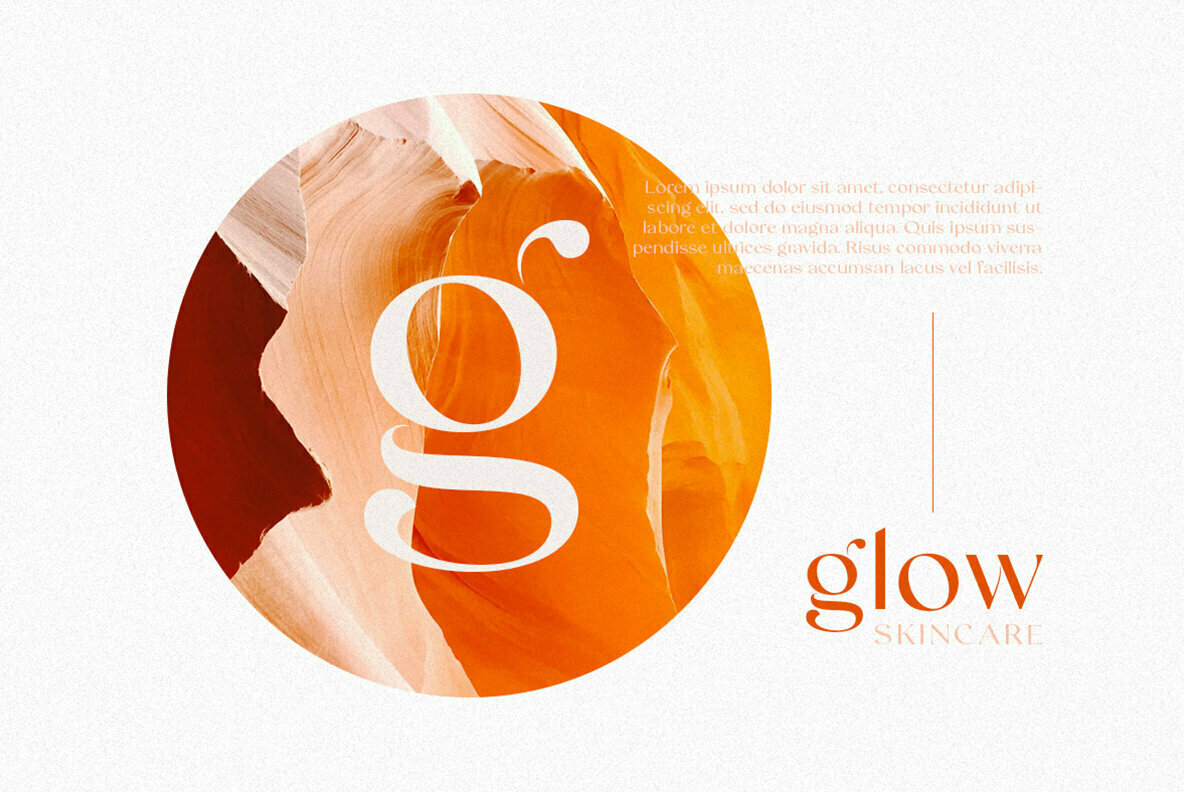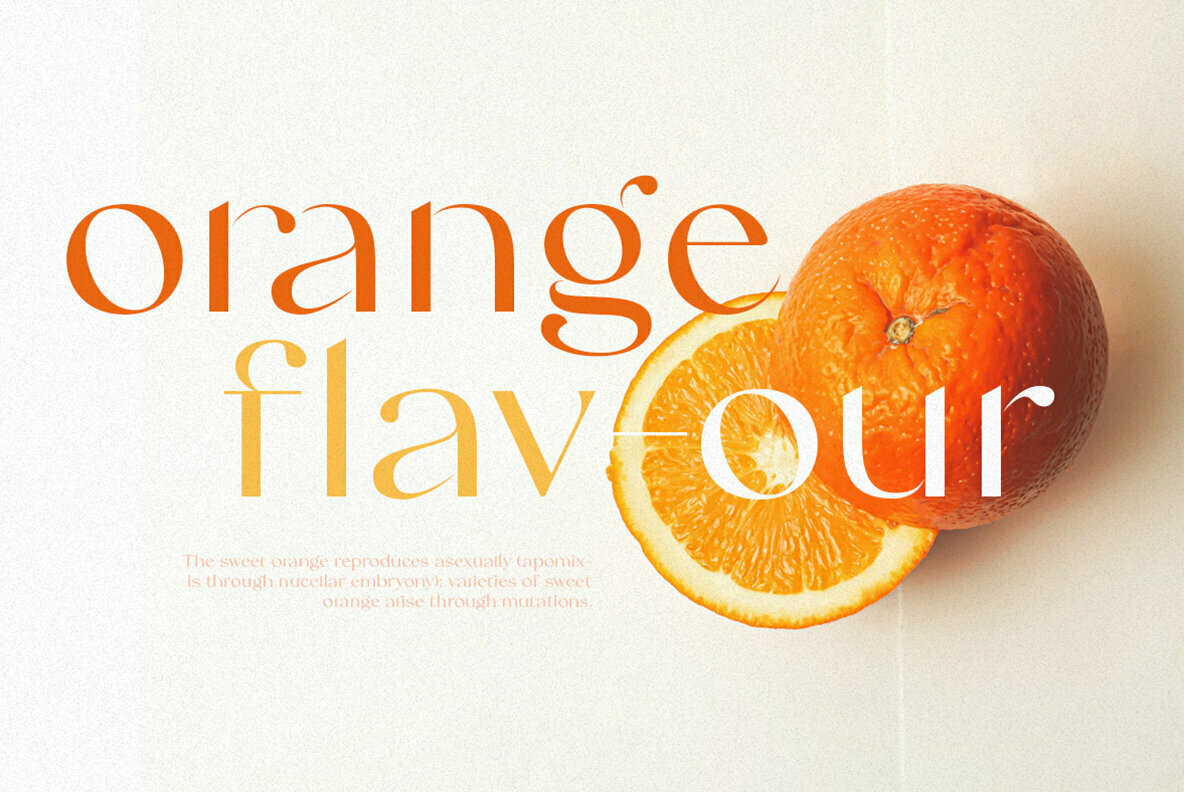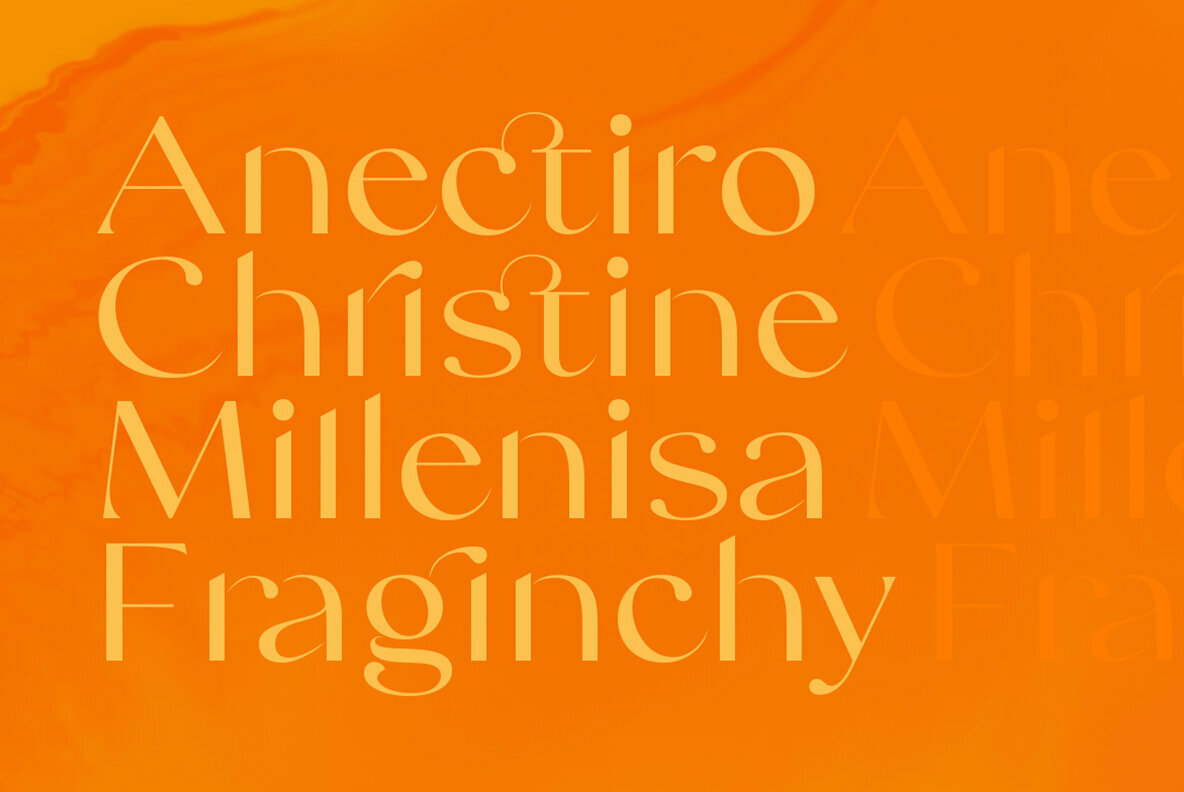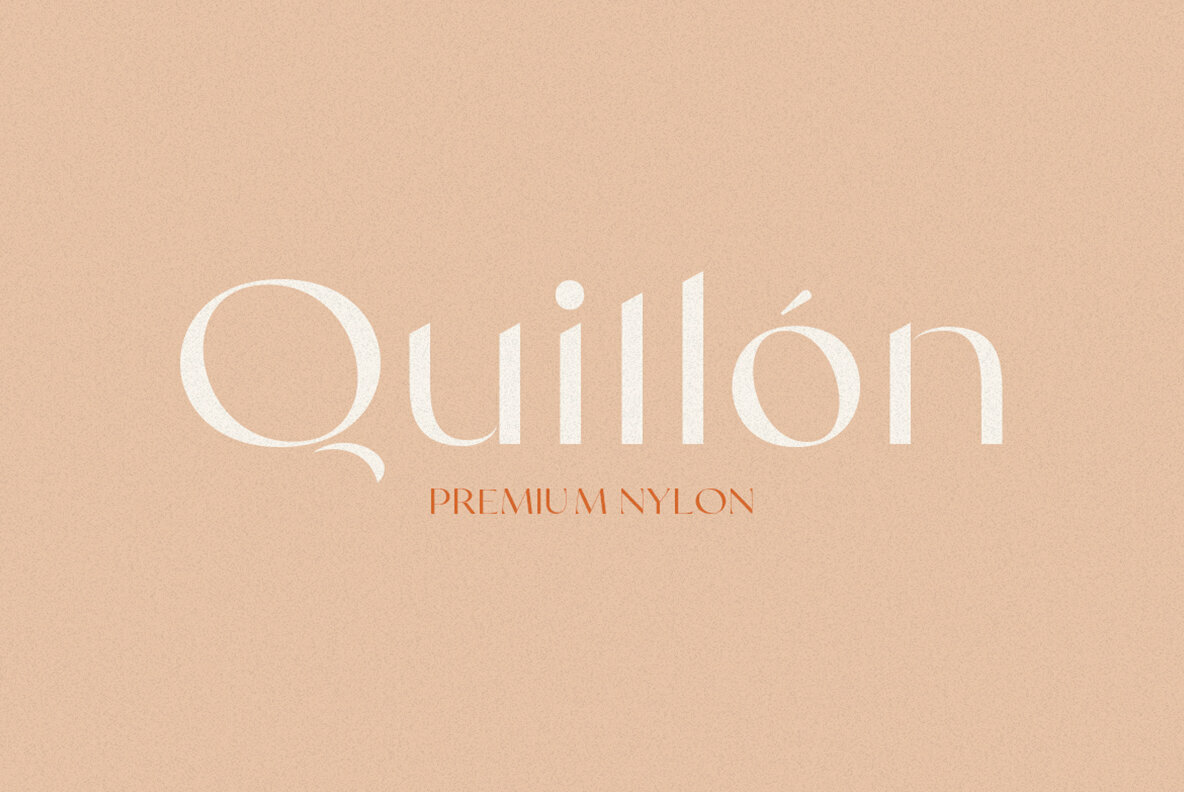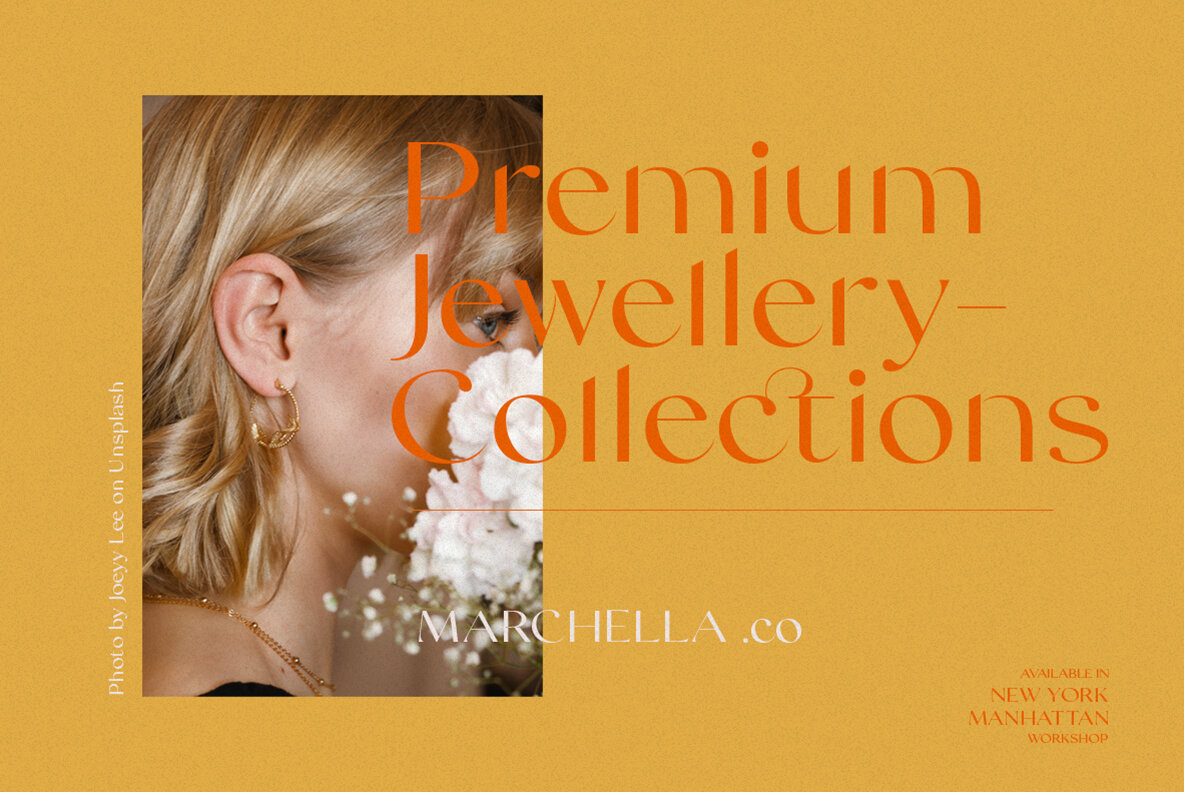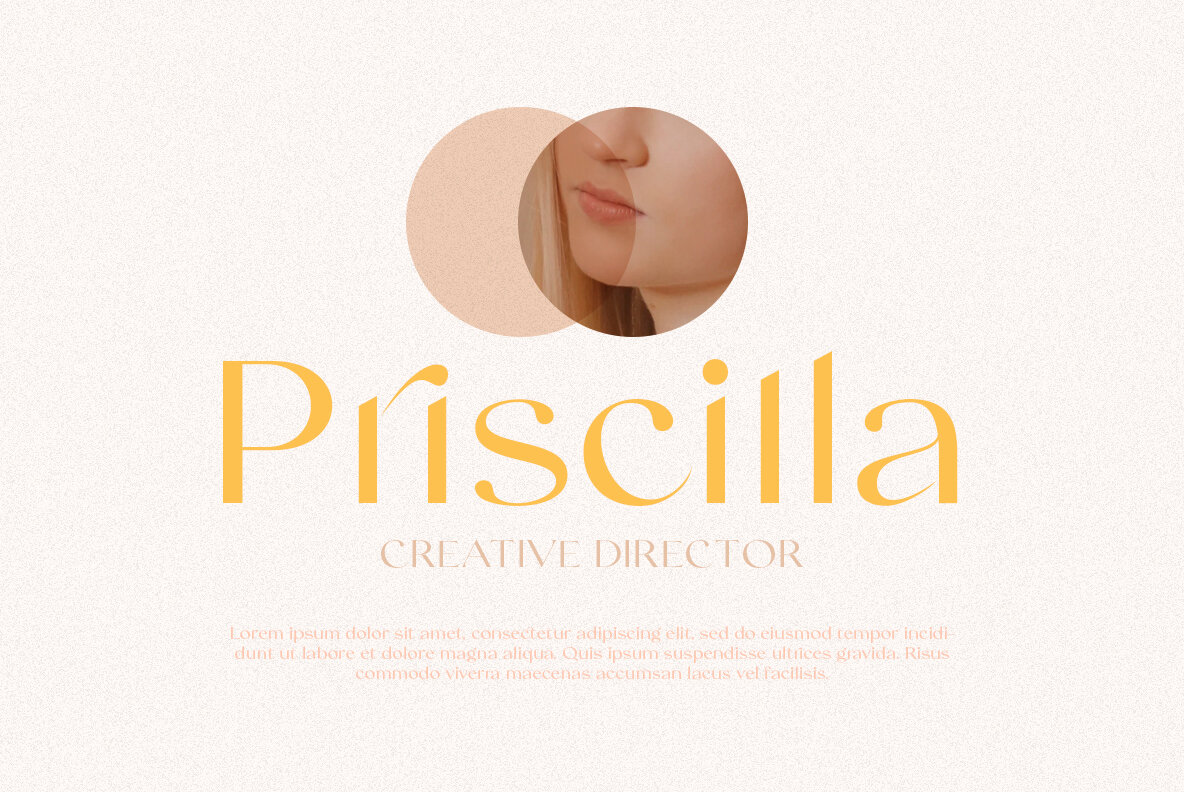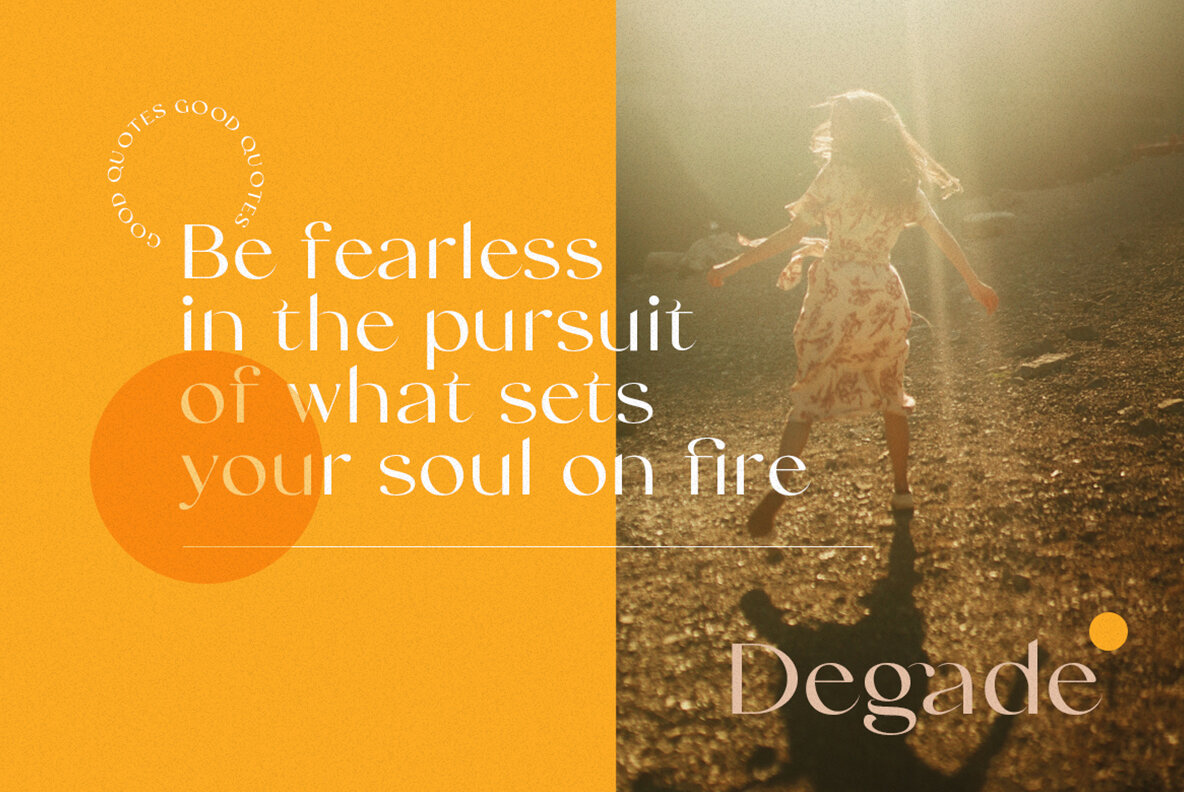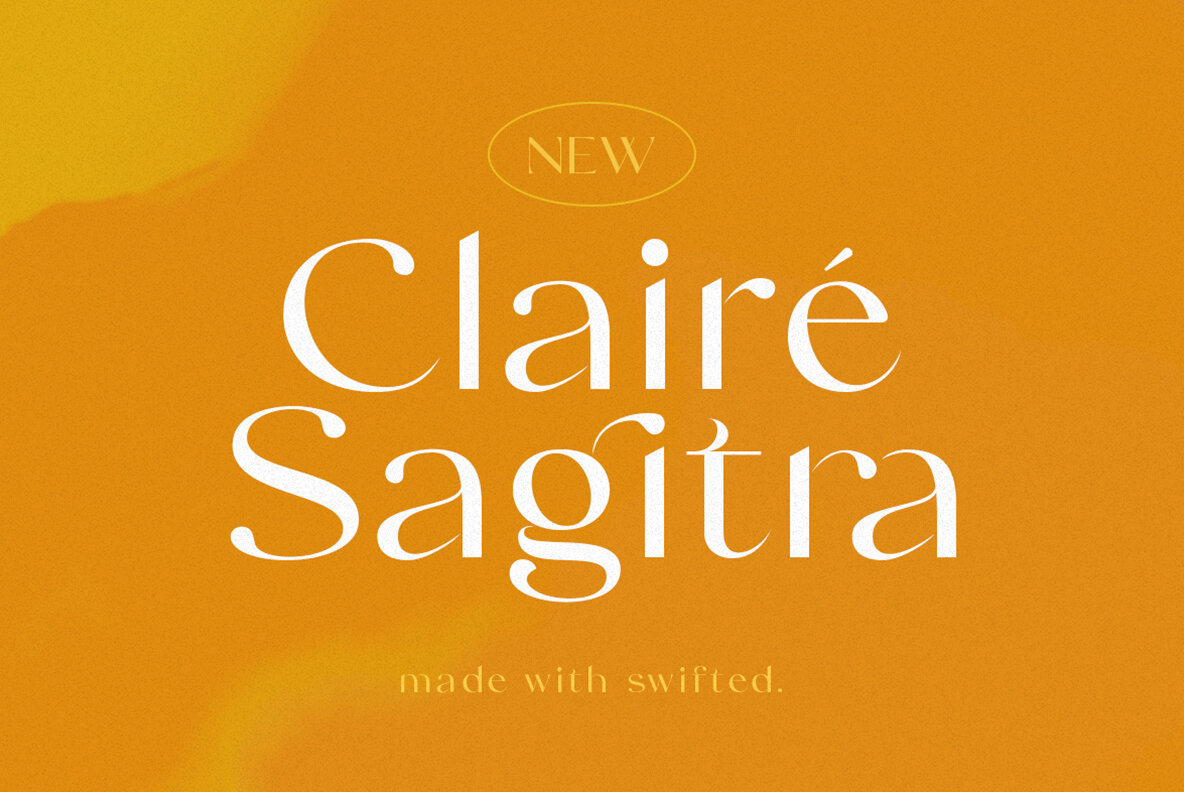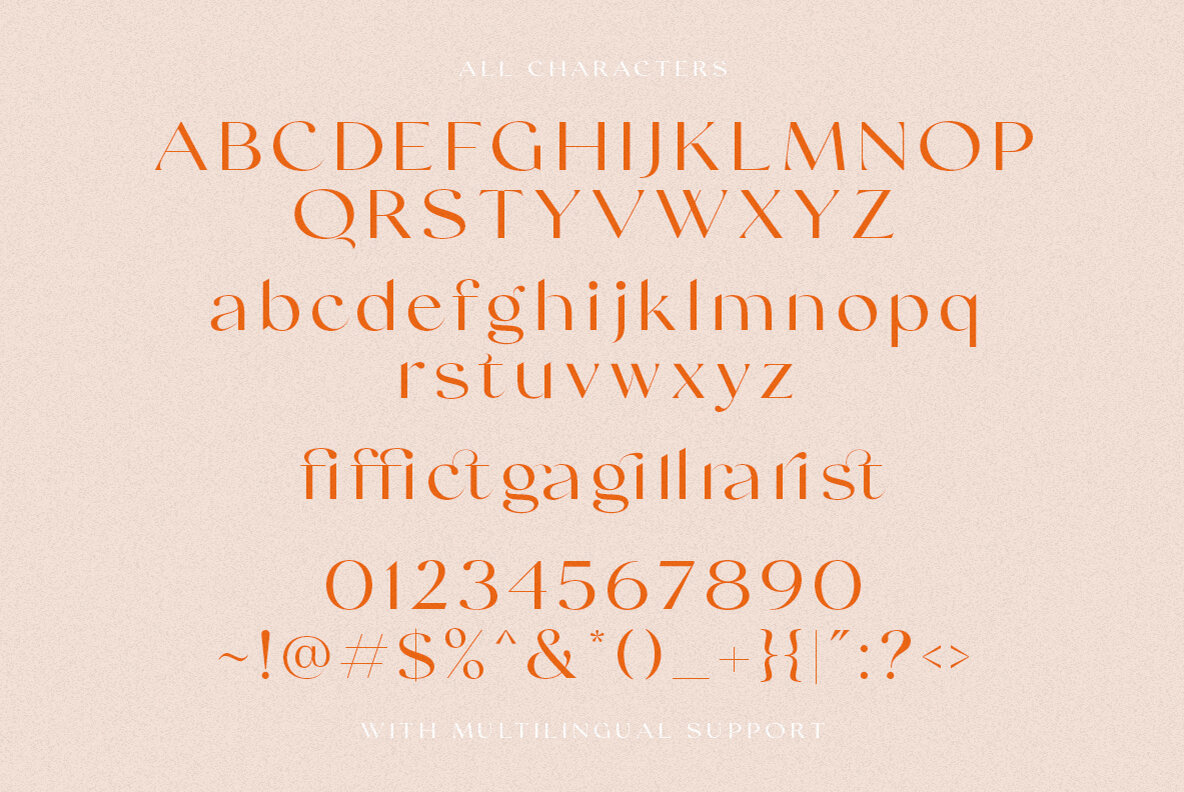
Swifted Font
Swifted Regular
Swifted is a modern and stylish typeface with unique details. This font works best in bigger sizes, useful for headlines, titles, or shorter texts. You can see the beautiful details in any characters that will make the font more fashionable. This font contains a bunch of essential ligatures that will make your presentation or logo even more stunning and stand out! Swifted also support Multi Language and is already PUA Encoded!